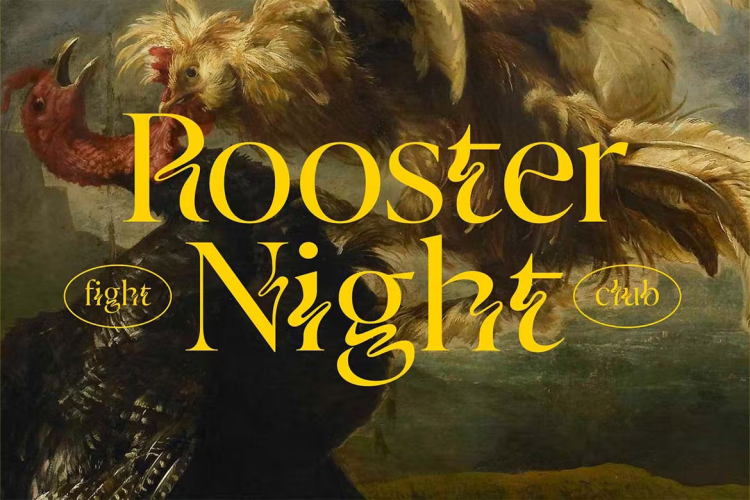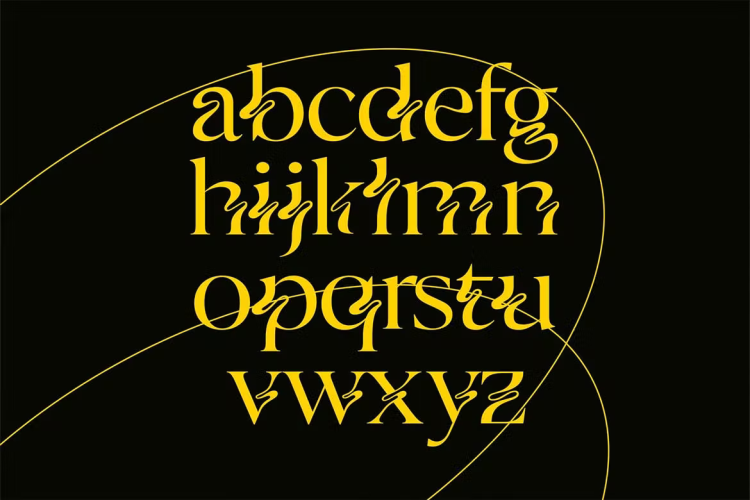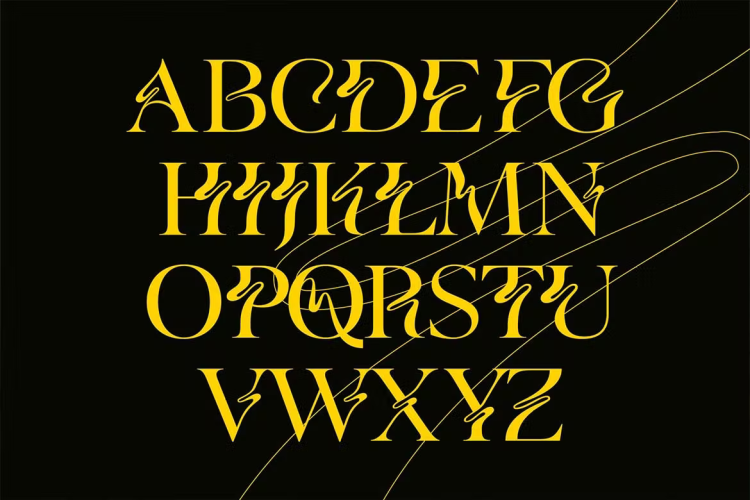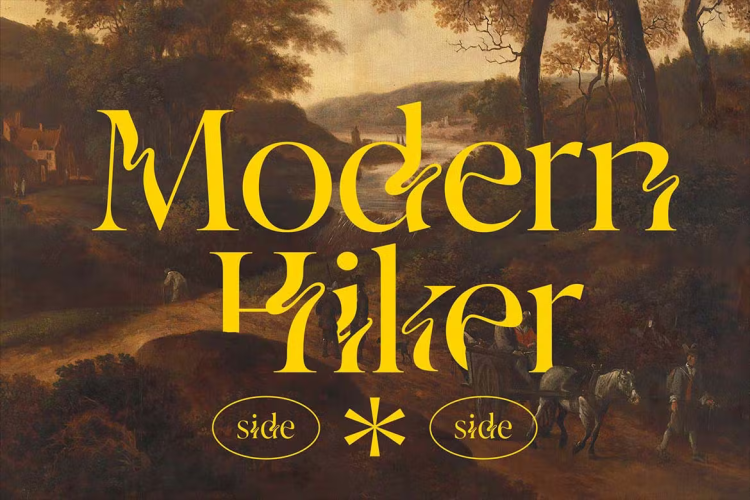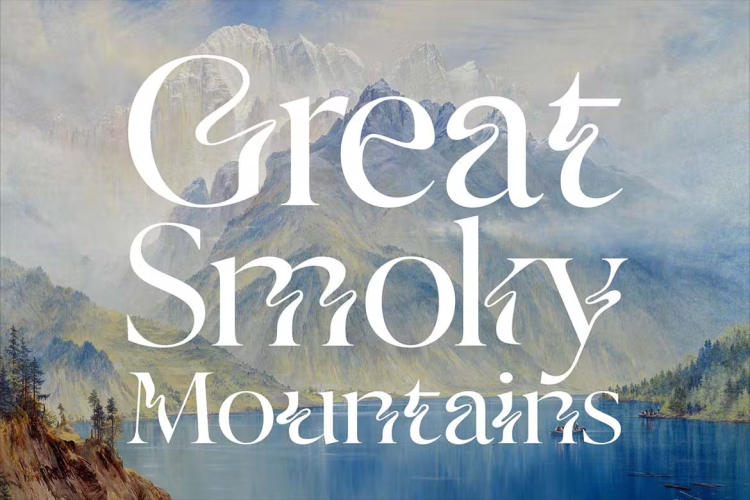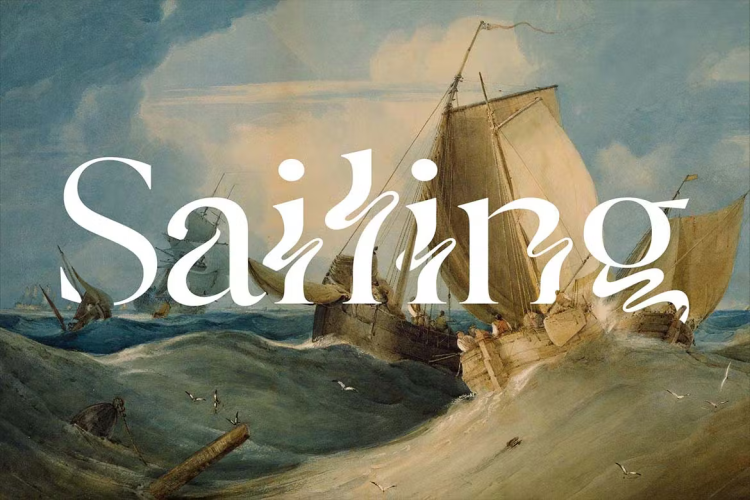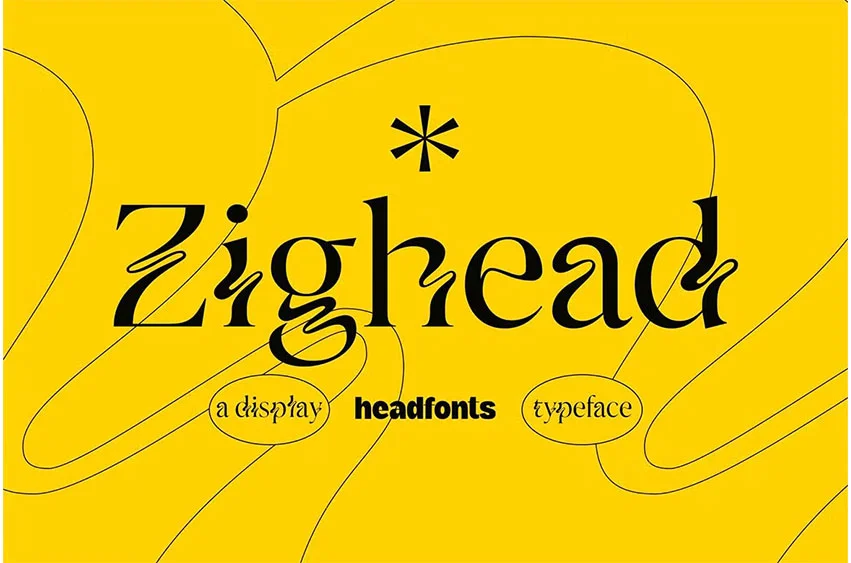
Zighead Display Font
Zighead Display Font is happy to present a new display font, named Zighead. This decorative font features strong and unique serif characters that flow like a river of in…
Zighead Display Font is happy to present a new display font, named Zighead. This decorative font features strong and unique serif characters that flow like a river of ink. Being a combination of sharp points and smooth curves, is interesting yet playful, providing that zing you are looking for. is an uppercase and lowercase font with standard Latin script support, numerals, and punctuation. This decorative font for sure will stand out, with its highly stylized, unique glyphs that are perfect for absorbing wordmarks and typographic posters.
Where Zighead Display Font works best
Headlines and titles
Zighead Display Font has enough character to carry a headline on its own; set it large and keep the supporting text plain.
Brand and product names
Short strings are where this typeface is strongest — a name, a label, a cover line.
Social and video graphics
Set Zighead Display Font over a flat colour or a quiet photograph so the letterforms stay the focus.
What kind of work does Zighead Display Font suit?
It sits in the Typeface group and reads as branding, decorative, display, playful. That makes it a candidate wherever those qualities help: headings, packaging, social graphics and brand work. Set it at the size you plan to use before deciding.